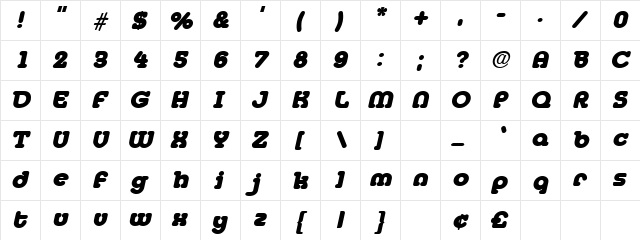
Romaunt Oblique
Design Context for Romaunt Typeface
Romaunt is a composed and adaptable typeface that performs quietly and consistently across a wide range of design contexts. Its italic angle brings a sense of urgency and motion to the letterforms.
Pro Tip: Use Romaunt for emphasis, pull quotes, and subheadings where its slanted energy can add rhythm to the layout.